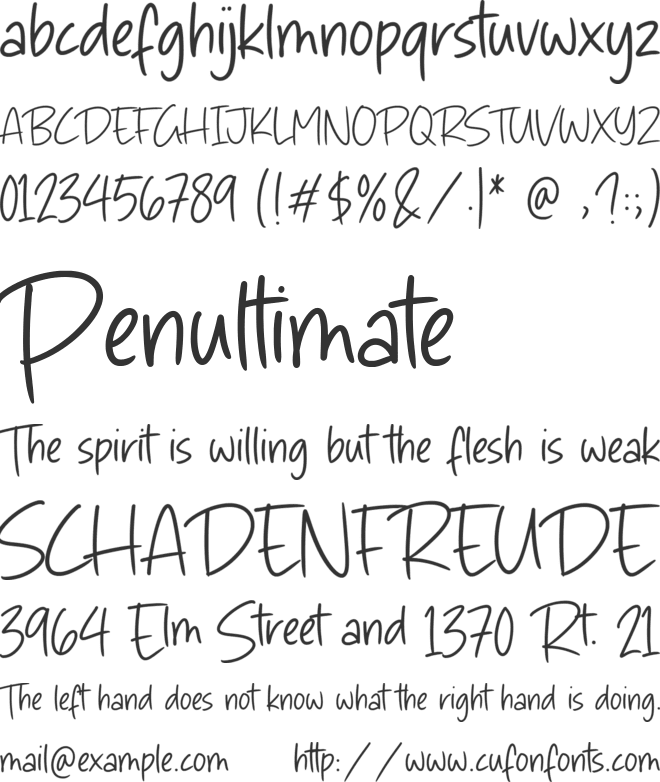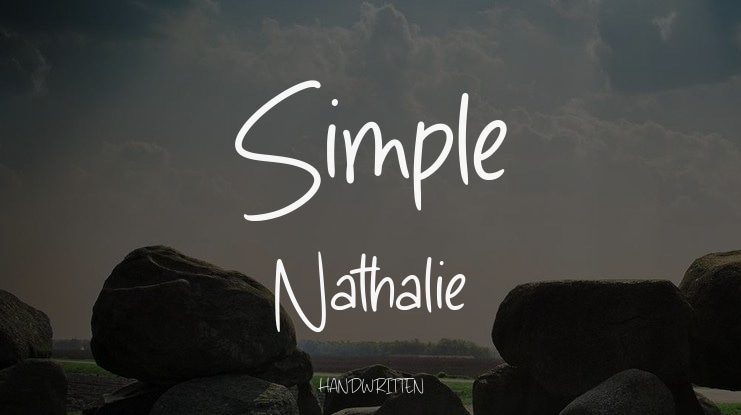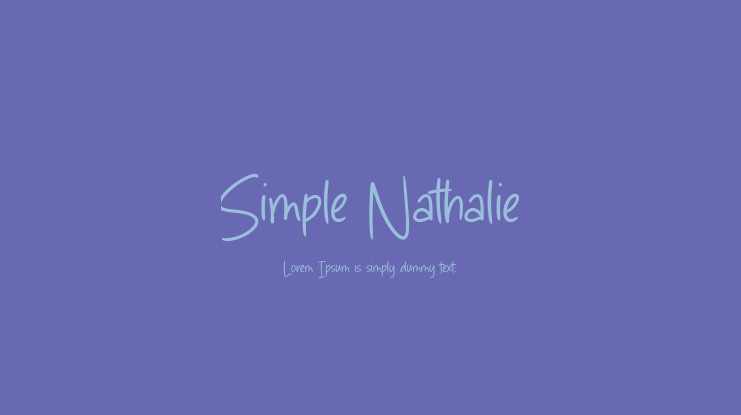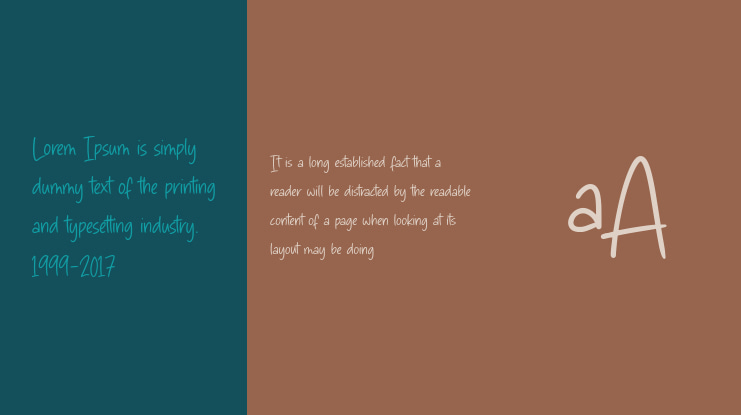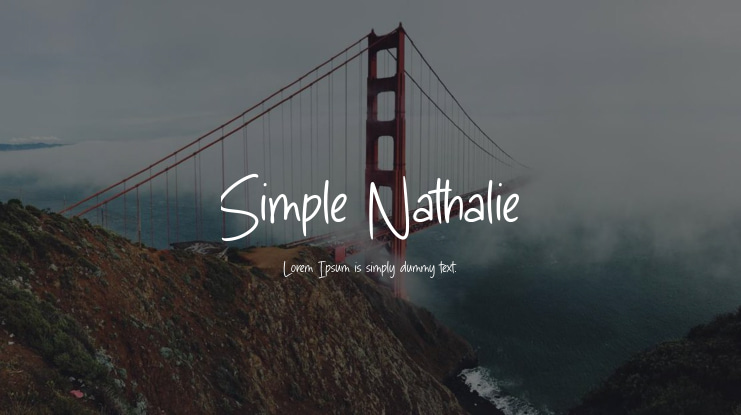
Introducing the charming Simple Nathalie handwritten font by Timurtype Studio!
Simple Nathalie is a delightful choice for your design projects with its soft and delicate letterforms, bringing a touch of cuteness and innocence. The graceful and fluid strokes of this font give off a gentle and approachable aesthetic, perfect for adding a sweet and friendly vibe to your branding materials, greeting cards, and children's books. Whether you're going for a whimsical and romantic feel or a fun and cozy atmosphere, the Simple Nathalie font offers versatility and warmth, infusing your designs with a delightful and endearing personality.